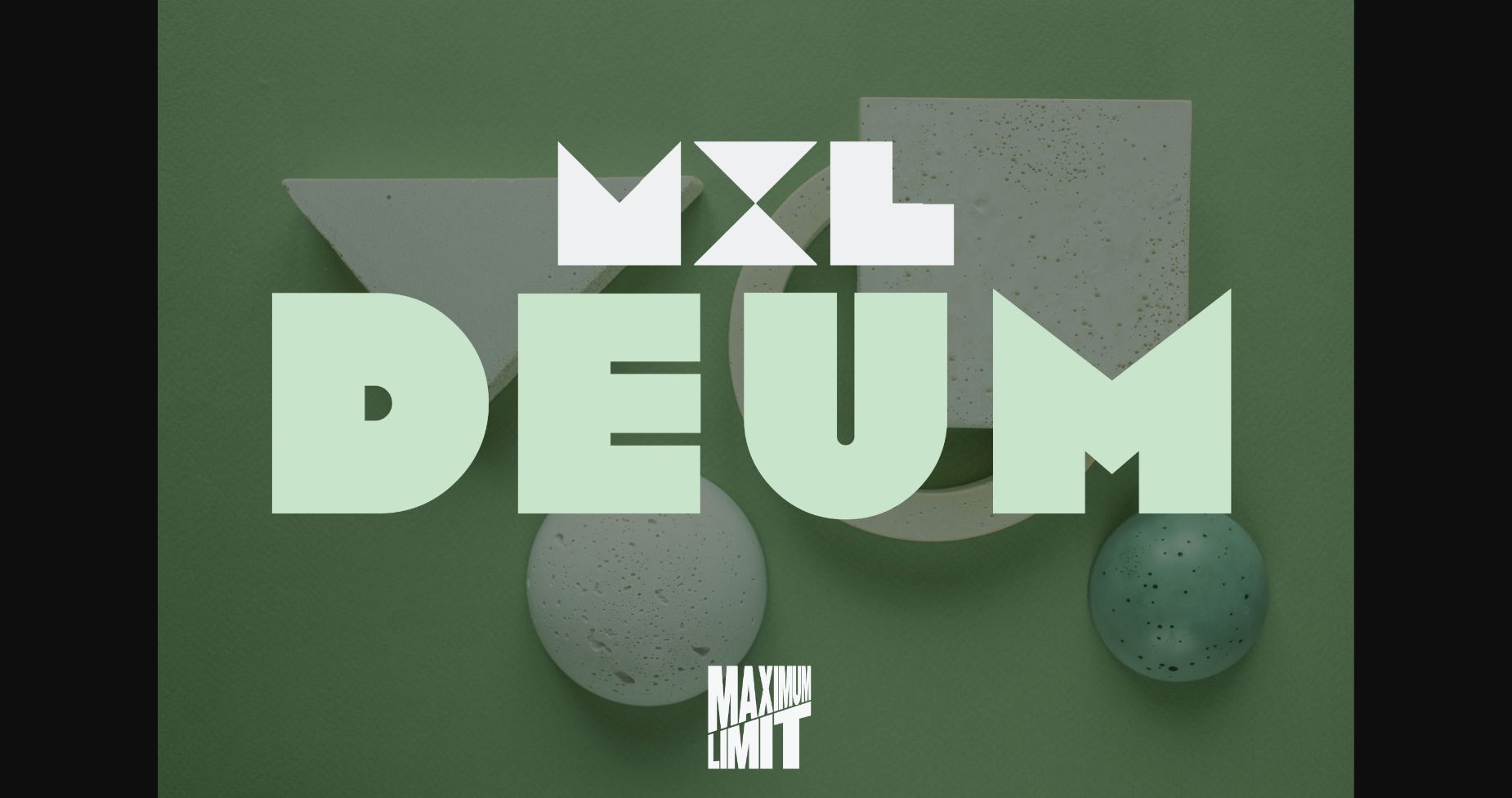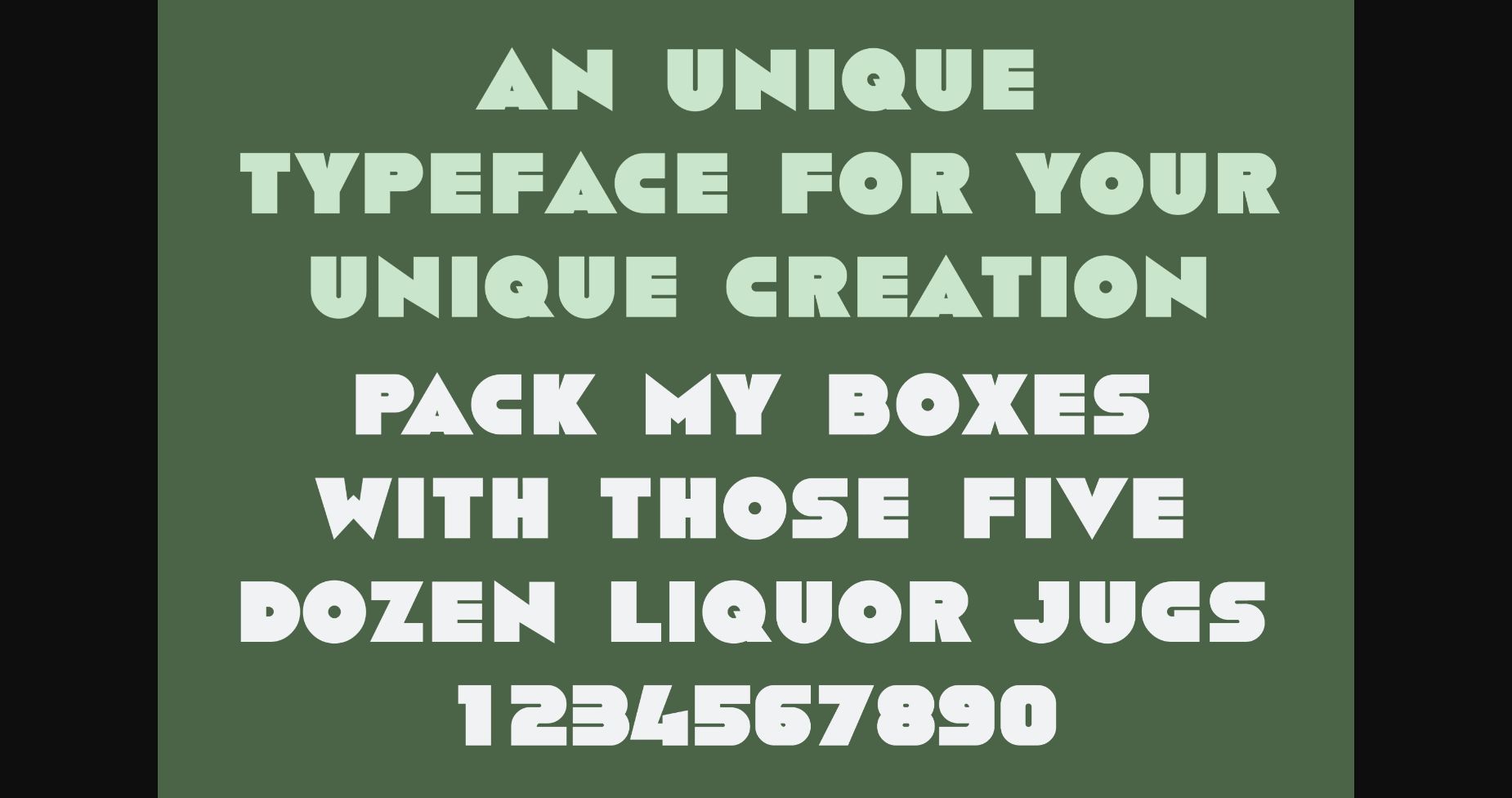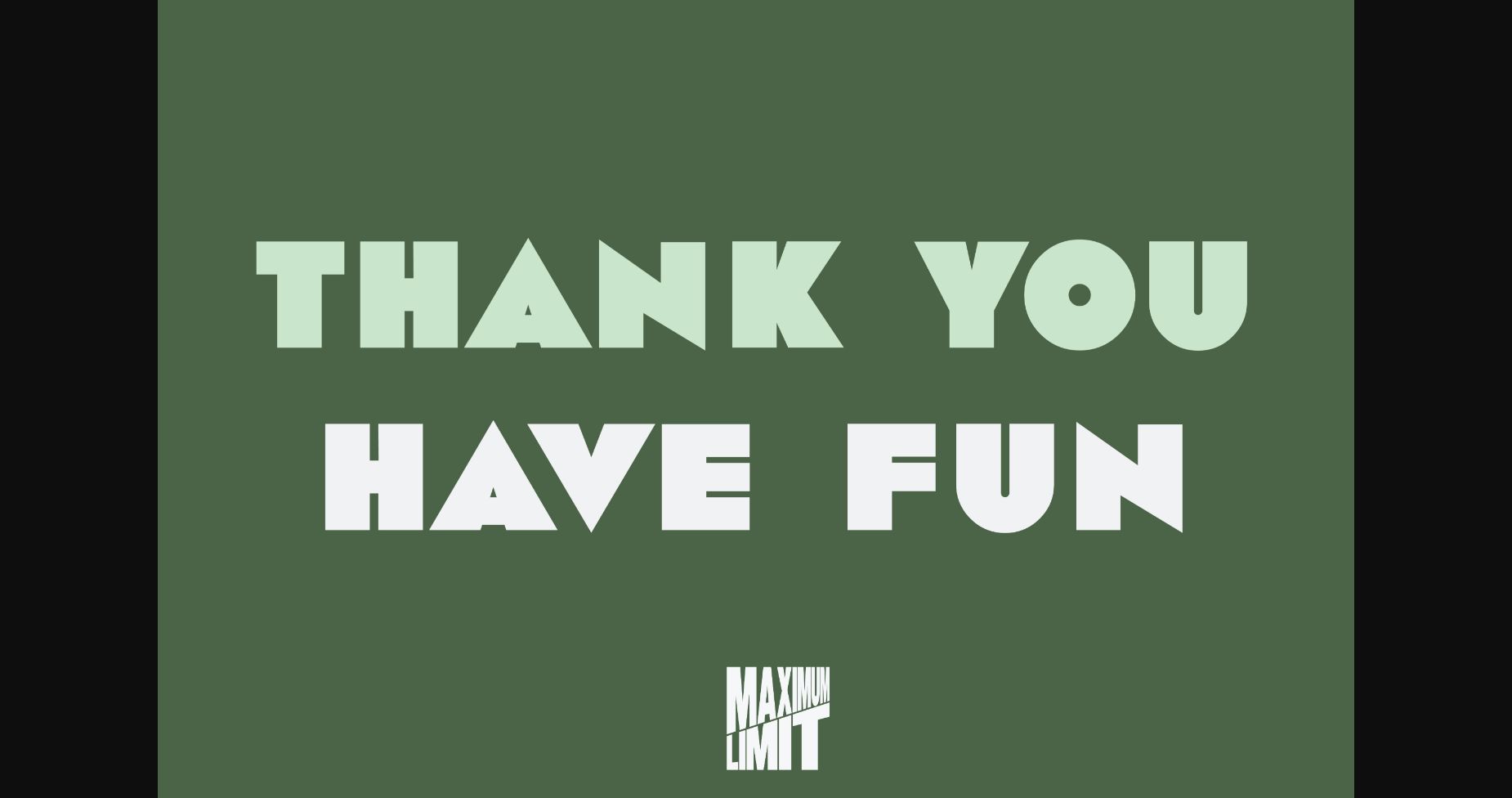
Mxl Deum Font
About Mxl Deum Font
INTRODUCING : MXL SERIES
MXL Series is a font series inspired by my old fonts when I still used the identity “Axel Lymphos”. The following font series are not the result of an update from the previous font. This font series is completely different from the previous fonts, but still shares the same characteristics as the previous fonts.
MXL Deum is the first entry of the series. A Black (Extra Bold) Geometric Sans Serif is an unique typeface for your unique creation.